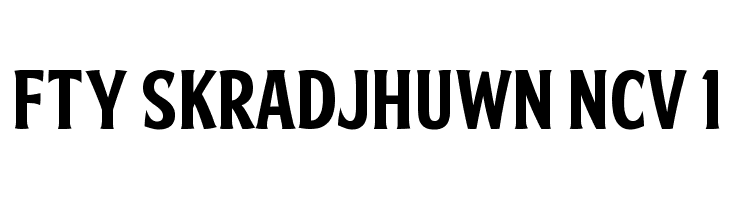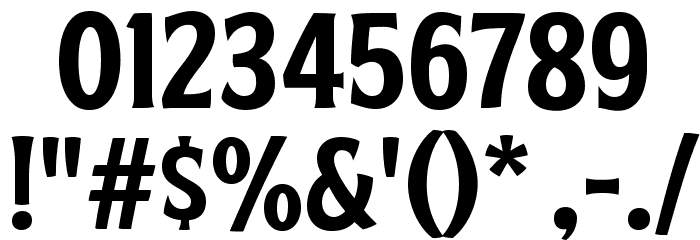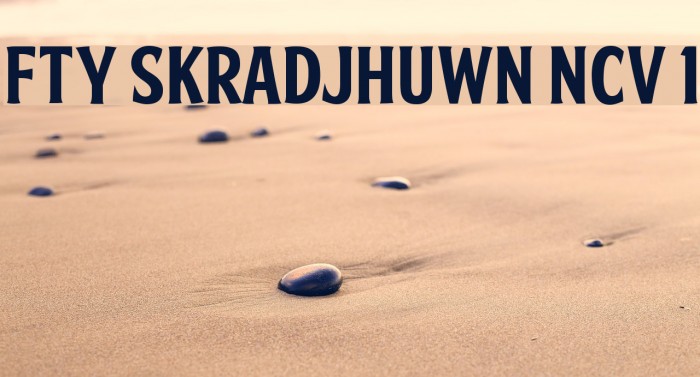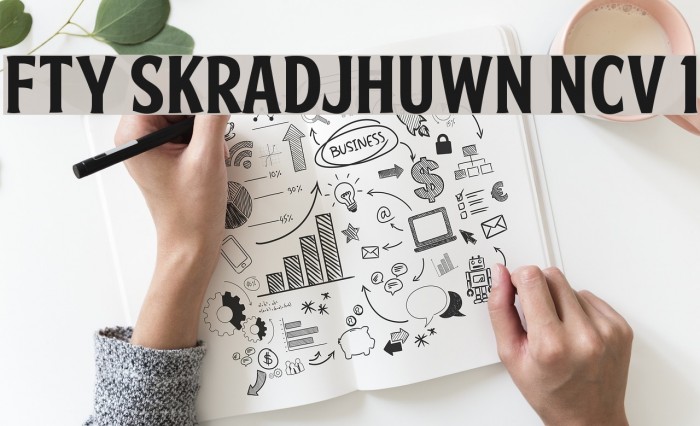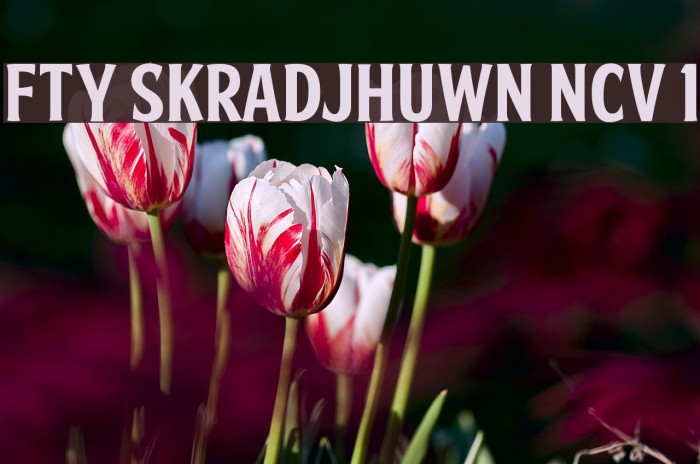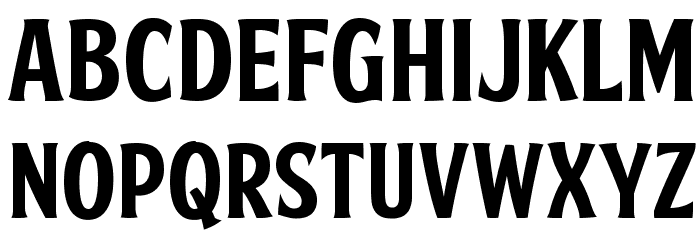
FTY SKRADJHUWN NCV 1 Font
FTY SKRADJHUWN NCV 1 Description
This font features bold, thick strokes with a strong presence, making it ideal for attention-grabbing headlines. The characters are slightly condensed, giving it a compact appearance while maintaining readability. The uppercase letters are particularly robust, with a slight curvature that adds a touch of elegance to the overall design. The numerals are consistent with the letterforms, ensuring uniformity across different uses. Special characters are well-defined, enhancing the font's versatility. The font's boldness and clarity make it suitable for impactful designs.
A bold, condensed font with strong, thick strokes and slight curvature from Uncategorized fonts.
- Proposed Projects: Ideal for posters, headlines, branding, and advertising materials where a strong visual impact is needed.